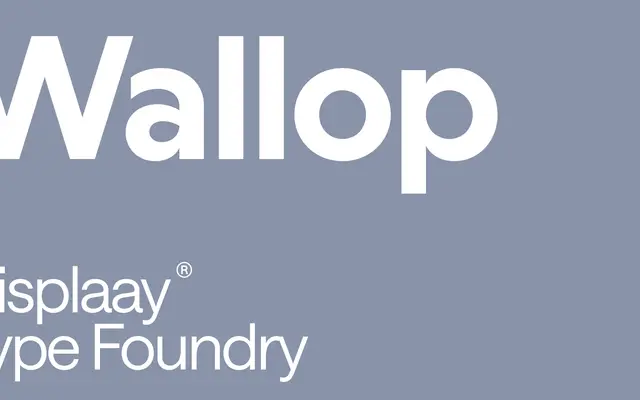
A 14-style humanist sans drawing on the Johnston and Gill lineage, packaged as a variable font with weight and slant axes and styled around club and disco culture.
Wallop positions itself in the British humanist sans tradition, citing Johnston's Underground and Gill as reference points, and extends that lineage into a seven-weight family with matching italics. A variable font with weight and slant axes runs across all 14 styles, giving designers continuous control between the extremes. The visual identity leans heavily into disco and nightlife references, making it a natural fit for music, events and culture-facing work.
The page references Johnston's Underground and Gill as lineage, placing Wallop squarely in the British humanist sans tradition with a sharp, contemporary cut alongside the standard forms.